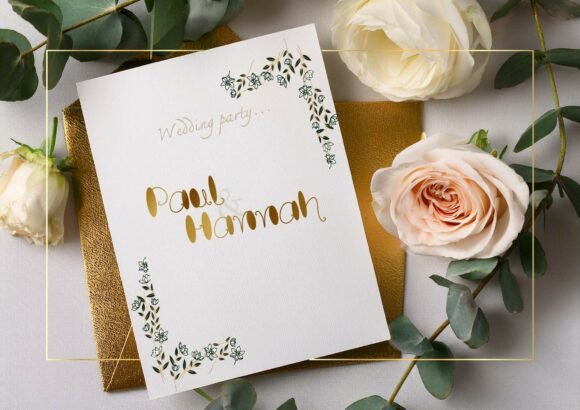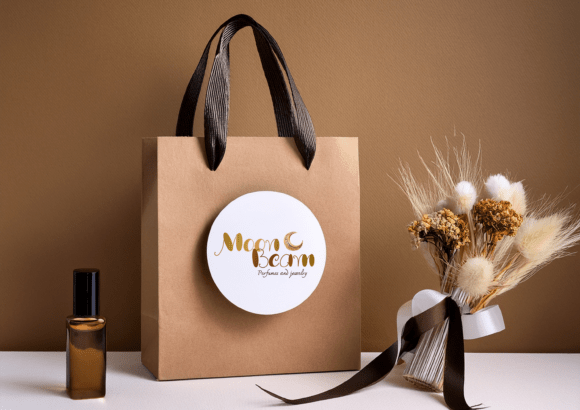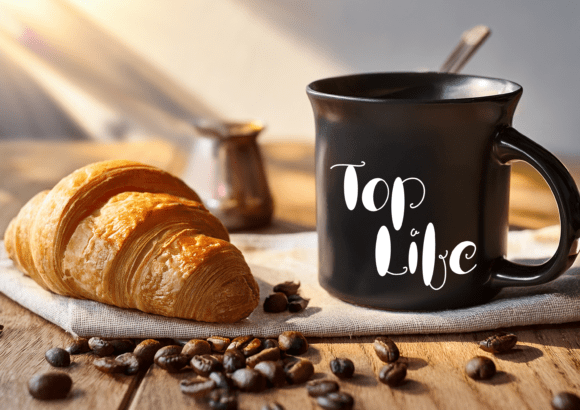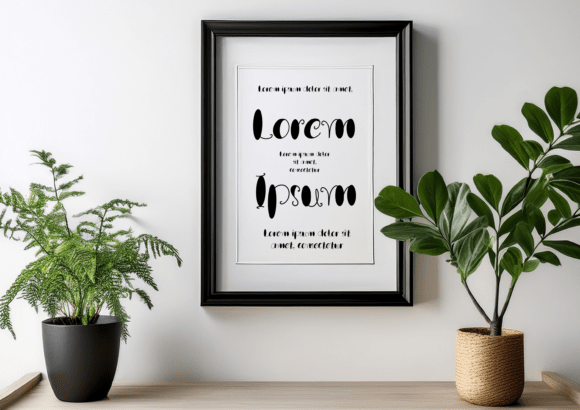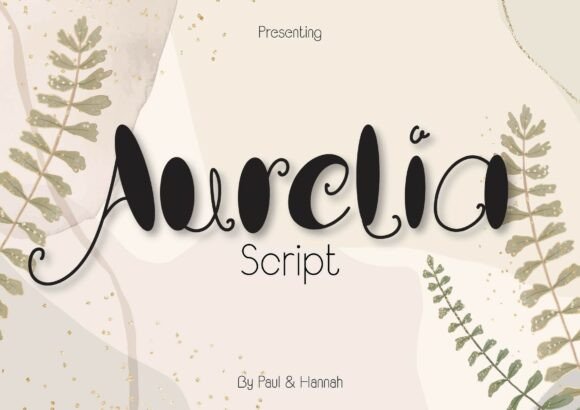
Discover the Elegance of Aurelia Script Font
Have you ever been in the middle of a design project, and suddenly, you’re stuck on finding the perfect font? I recall a recent experience where I was working on a wedding invitation design, and my client requested a font that was both elegant and playful. After hours of searching, I stumbled upon Aurelia Script Font, and it instantly became the star of the show! In this article, we’ll dive into the world of Aurelia Script, exploring its unique features, and how to make the most of this beautiful font.
A Personal Review of Aurelia Script Font
As a designer, I’m always on the lookout for fonts that can elevate my projects. Here’s my honest review of Aurelia Script Font:
- ✨ Unique and eye-catching design: Aurelia Script boasts bold oval shapes with elegant swirls and flourishes, making it perfect for adding a touch of charm and sophistication to any project.
- ✅ Versatility: This font is ideal for a wide range of applications, including wedding invitations, branding, greeting cards, logos, quotes, social media posts, and craft designs.
- 💫 Modern boldness with whimsical details: Aurelia Script seamlessly combines modern boldness with whimsical details, making it stand out in both digital and print designs.
- 🤔 Limited use in body text: Due to its decorative nature, Aurelia Script might not be the best choice for lengthy body text. It’s better suited for headings, titles, or short paragraphs.
- ⚠️ Requires careful kerning: As with any script font, kerning can be a bit tricky. Make sure to adjust the kerning to ensure the text looks smooth and elegant.
- Experiment with the font’s OpenType features, such as swashes and stylistic alternates, to add more flair to your design.
The Designer Inspiration Behind Aurelia Script
Aurelia Script Font was inspired by the elegance and sophistication of traditional calligraphy. The designer aimed to create a font that would capture the essence of handwritten script, while still being modern and bold. The result is a font that exudes charm and whimsy, making it perfect for a wide range of creative projects.
| What is Aurelia Script Font best used for? | Aurelia Script Font is ideal for wedding invitations, branding, greeting cards, logos, quotes, social media posts, and craft designs. |
| Is Aurelia Script Font suitable for body text? | Due to its decorative nature, Aurelia Script Font is better suited for headings, titles, or short paragraphs. It’s not recommended for lengthy body text. |
| Does Aurelia Script Font come with OpenType features? | Yes, Aurelia Script Font features OpenType features, including swashes and stylistic alternates, which can be accessed in compatible design software. |